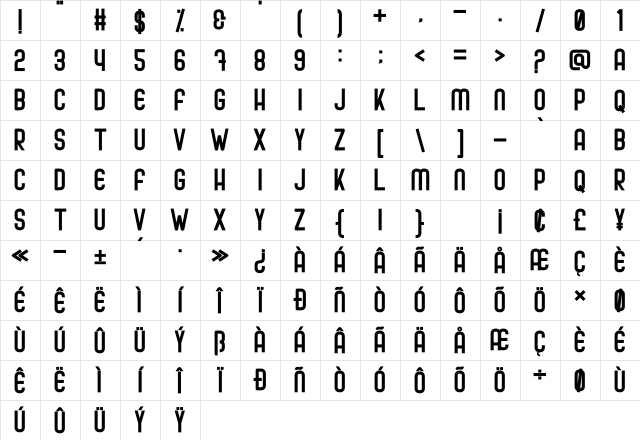
Cafiloser Regular Free Font
Cafiloser Regular
Designer: Skiiller studio - M irfan mahmudin
Design Context for Cafiloser
Cafiloser is a composed and adaptable typeface that performs quietly and consistently across a wide range of design contexts.